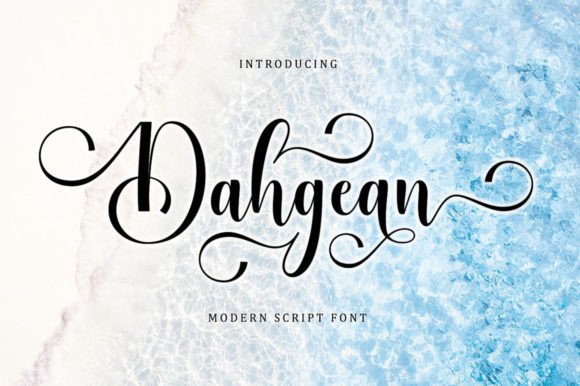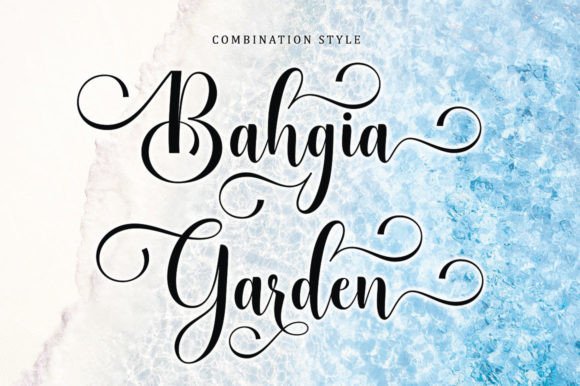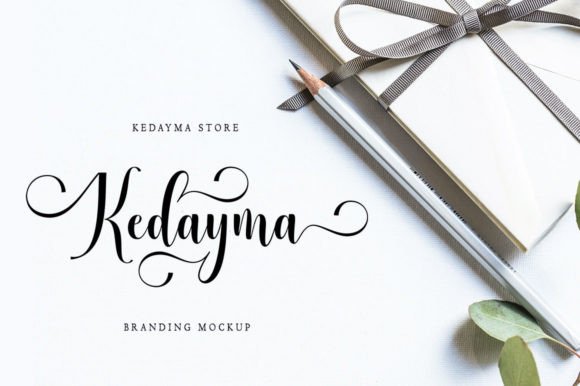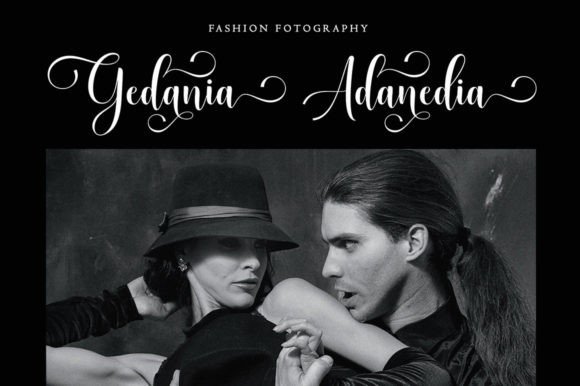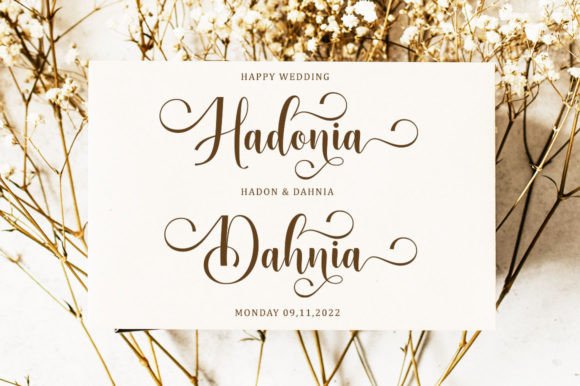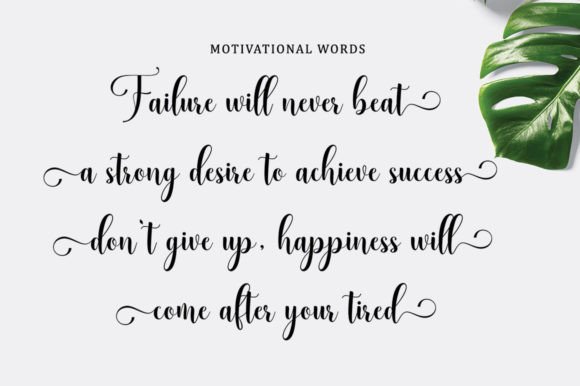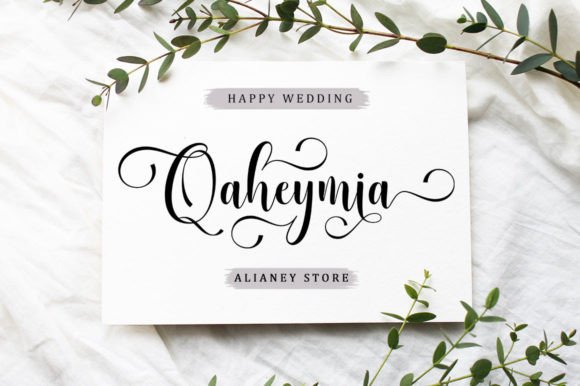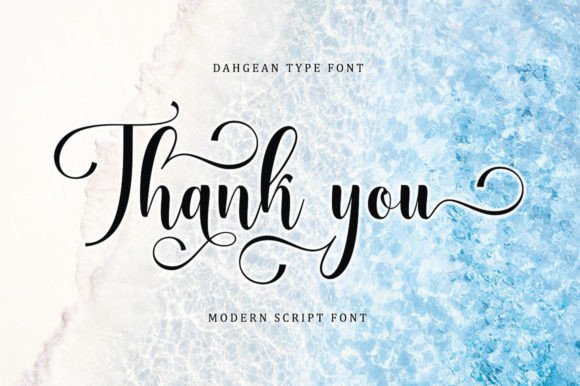
Dahgean Font
About Dahgean Font
The Dahgean Font download offers a perfect mix of elegance and simplicity. It is a modern script font with a classic feel. Designed with smooth curves and clean lines, this font brings a soft, feminine, and stylish touch to every design.
Because of its graceful letter connections, it looks natural and easy to read. Moreover, Dahgean stands out with its timeless beauty, making it ideal for a variety of projects.
Perfect for Many Design Uses
You can use the Dahgean Font download in many ways. For instance, it works well in:
• Wedding invitations
• Business logos
• Beauty or fashion branding
• Greeting cards
• Menus and packaging
• Book covers and magazines
• Elegant social media designs
Whether your project is formal or playful, this font adds a polished finish. It adapts easily, so you can use it in both modern and classic layouts.
Why Choose Dahgean Font?
There are several reasons to choose the Dahgean Font download for your next project:
• It features stylish strokes and smooth curves
• The font is easy to read on screens and in print
• It feels soft, graceful, and classy
• Since it’s PUA encoded, you can access extra characters easily
In other words, Dahgean is more than just a font—it’s a design tool that helps your message shine. It adds charm without being too complex.